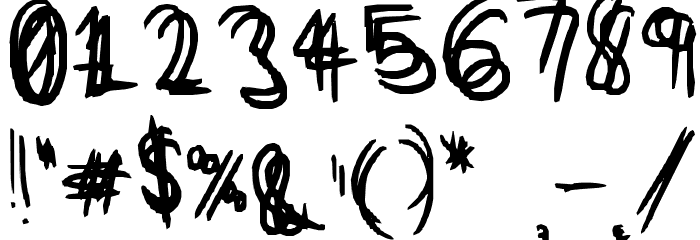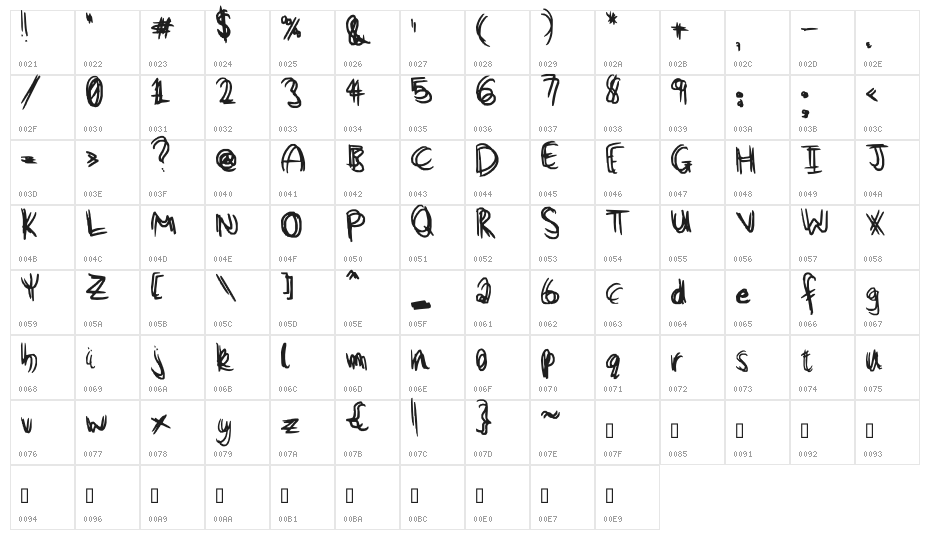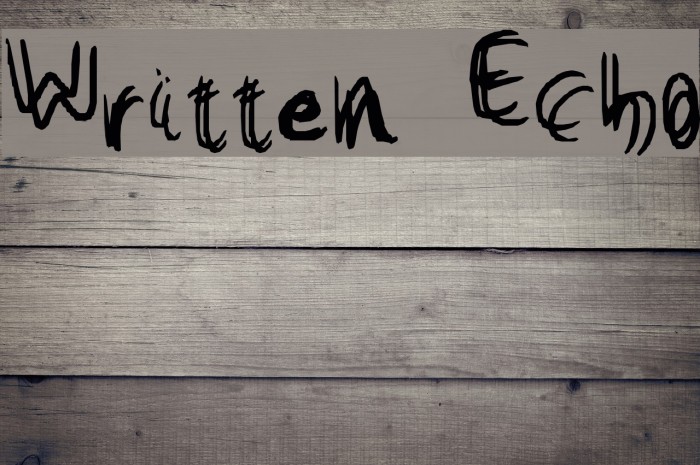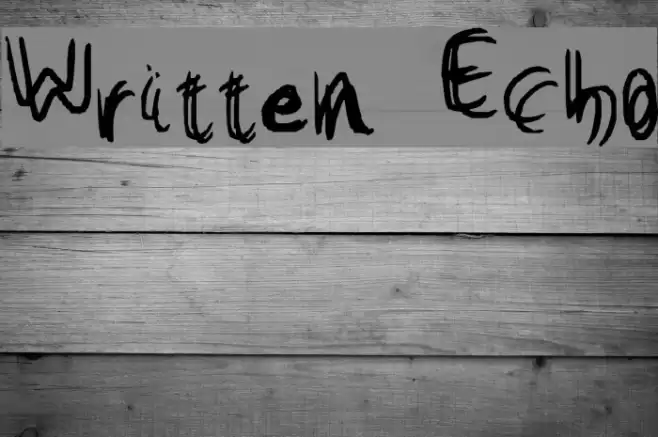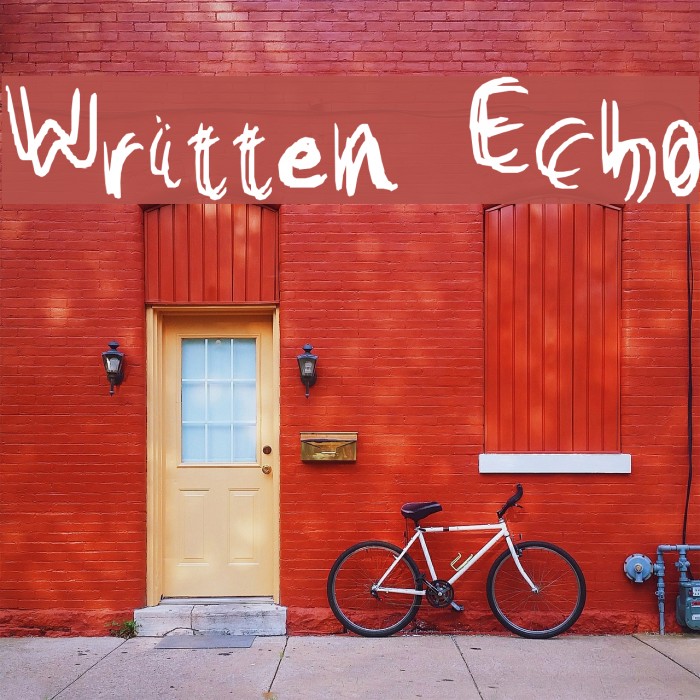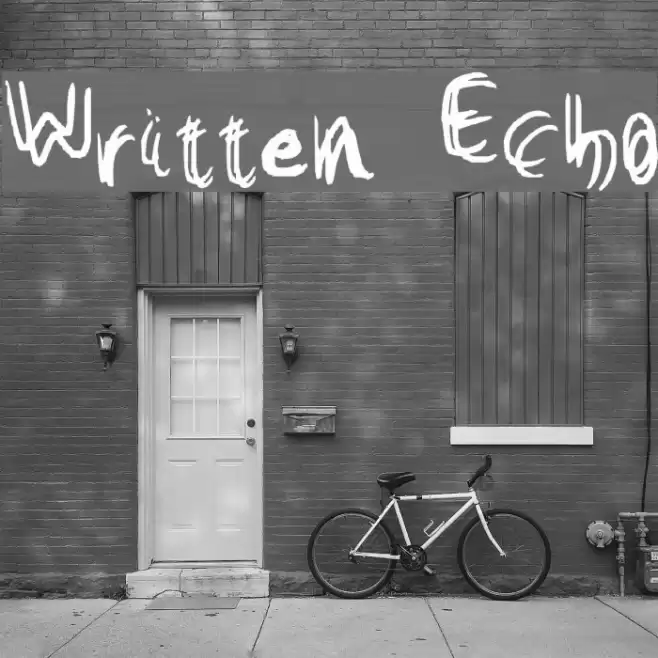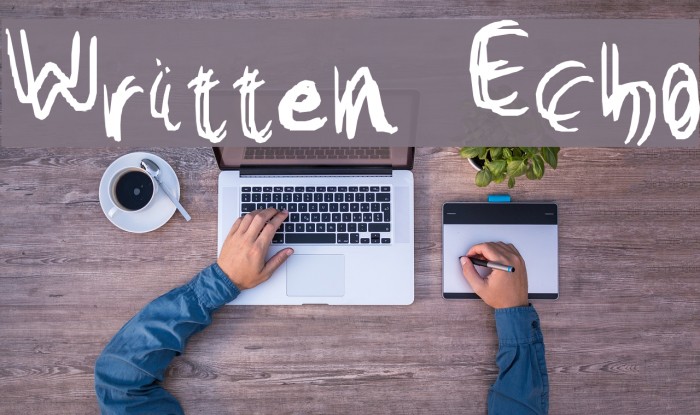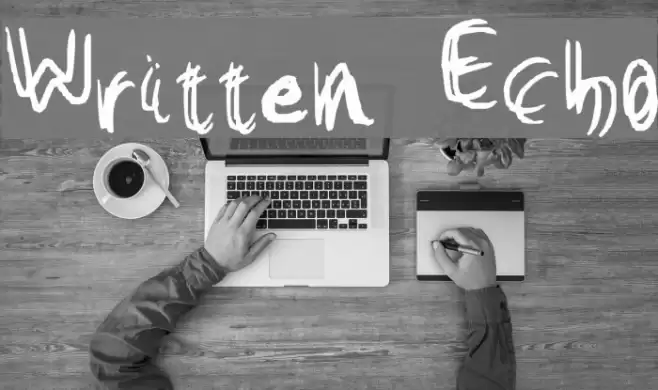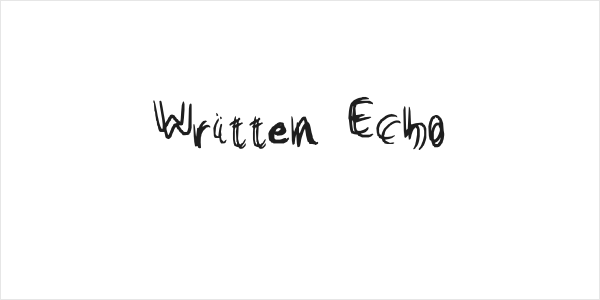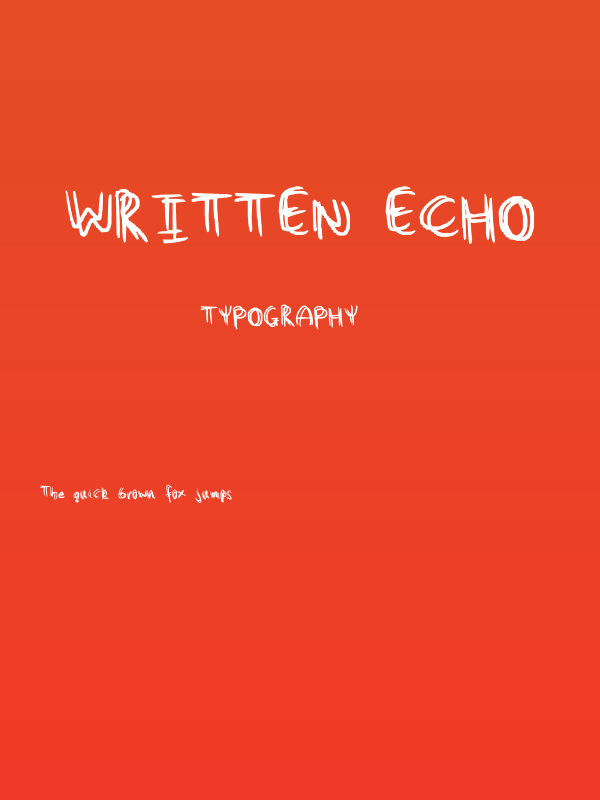
Written Echo Font
Written Echo Description
This font exudes a dynamic and energetic style, characterized by its bold, hand-drawn appearance. The letters are irregular and slightly chaotic, giving it a raw, expressive feel. The strokes are thick and uneven, with a playful, almost graffiti-like quality. This font captures a sense of spontaneity and creativity, making it ideal for projects that require a personal touch. The uppercase and lowercase letters maintain a consistent style, while the numbers and special characters complement the overall aesthetic. Its unique design makes it stand out, perfect for eye-catching headlines or artistic designs.
| Use Case | Headlines, Artistic designs, Creative branding |
| Proposed Projects | Ideal for posters, album covers, street art designs, and creative branding projects. |